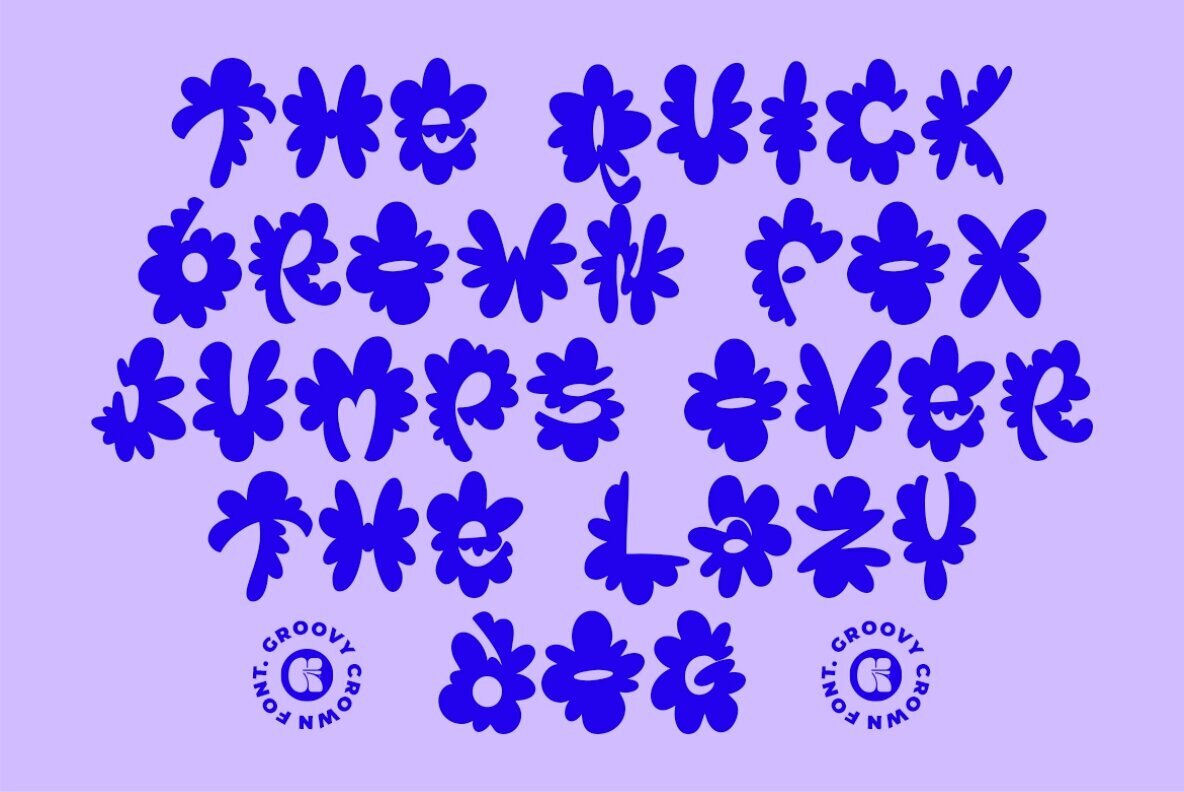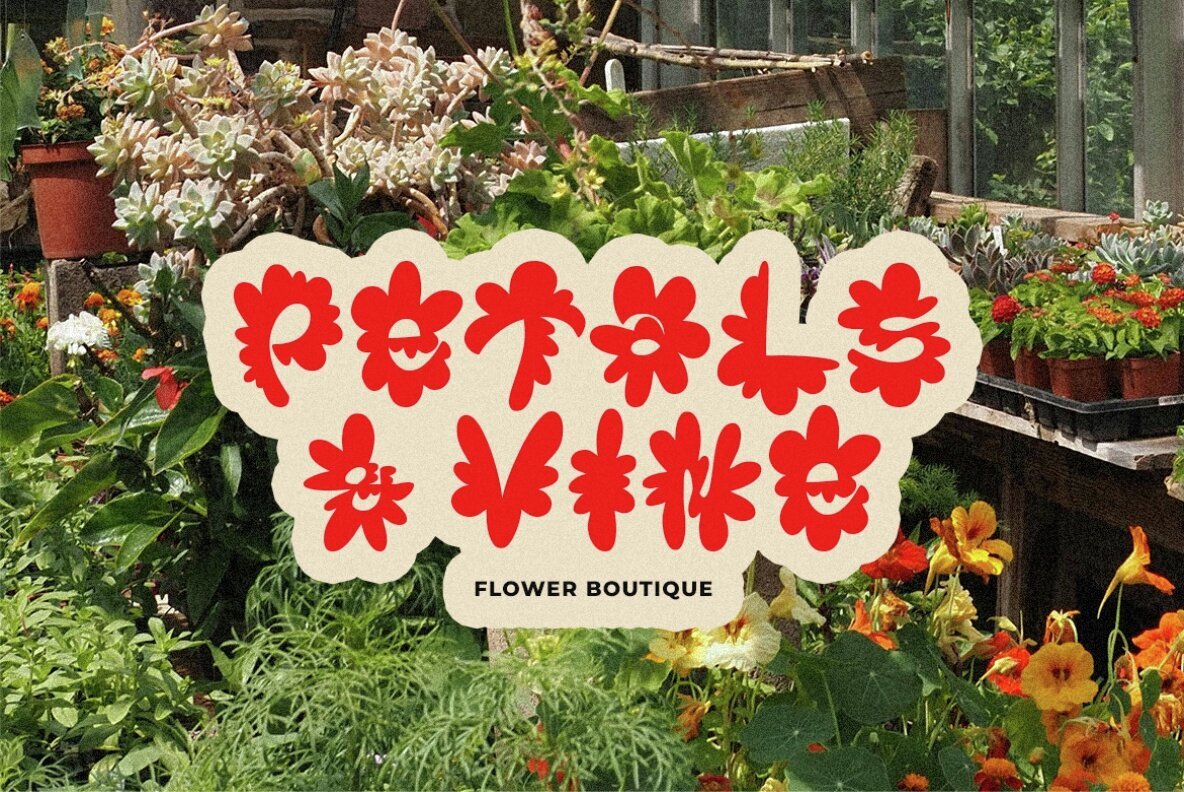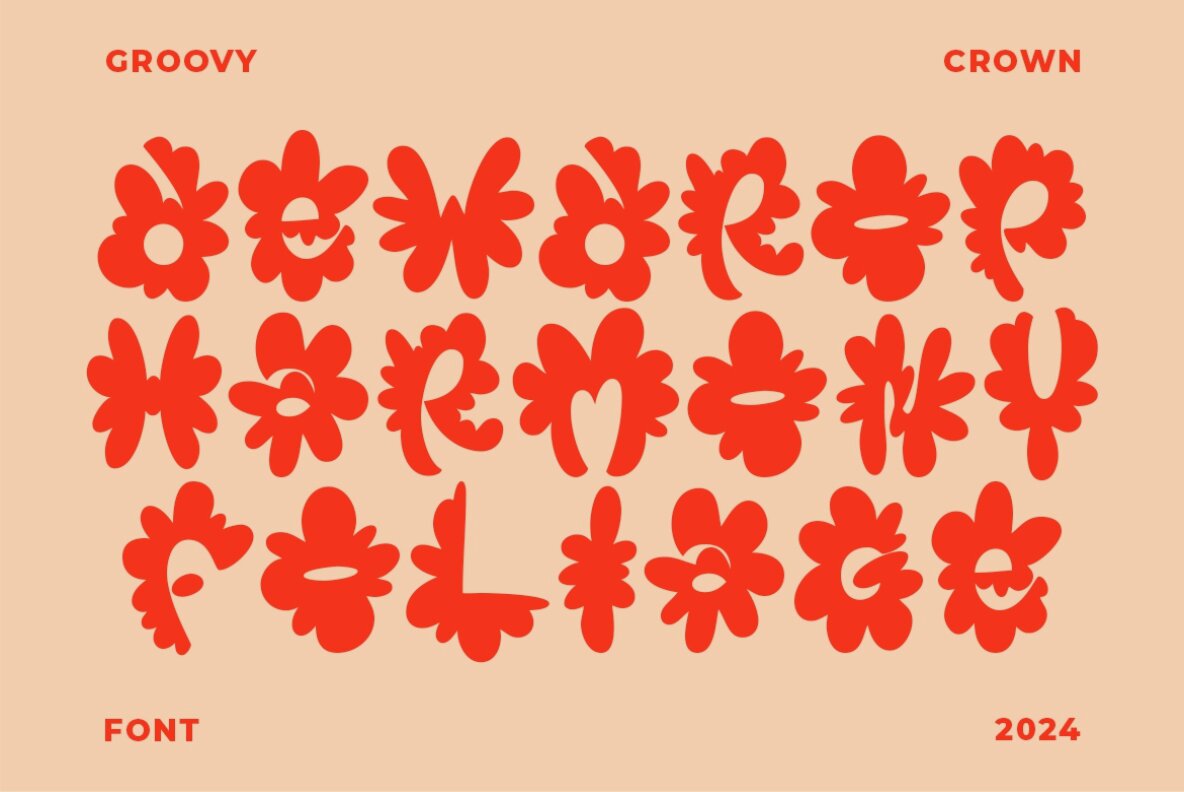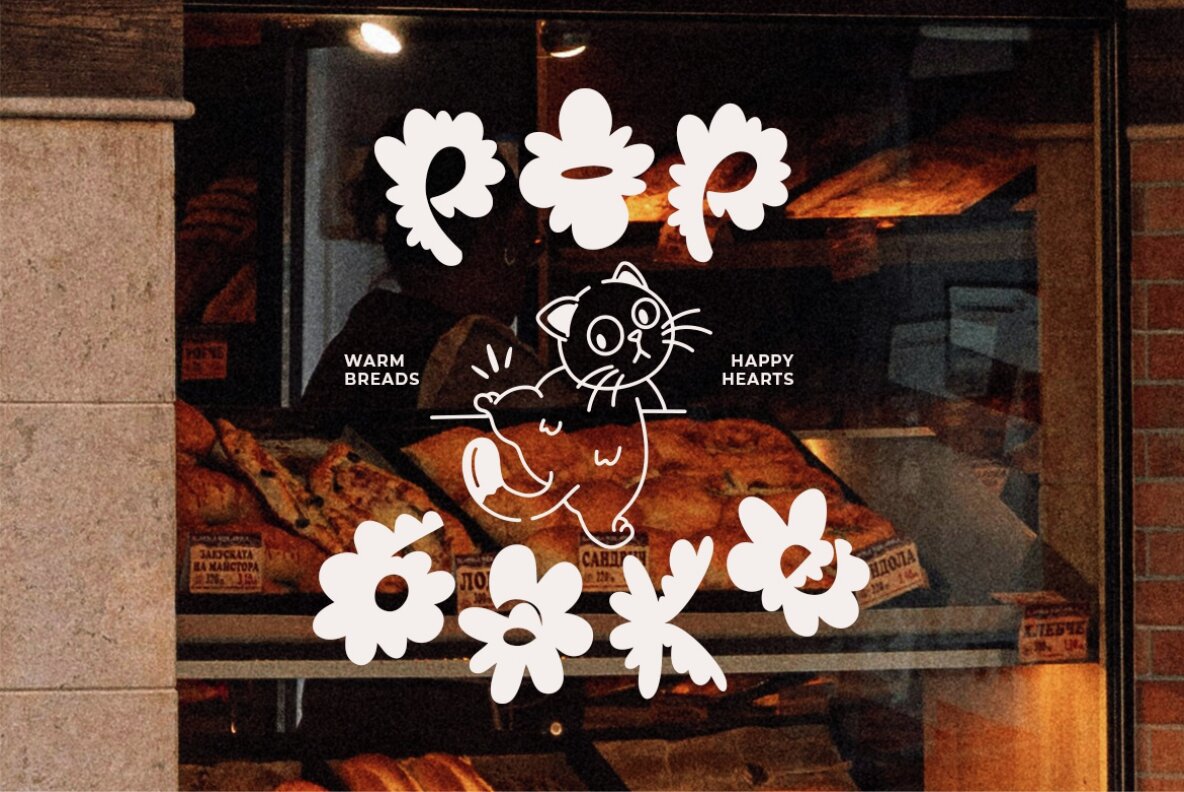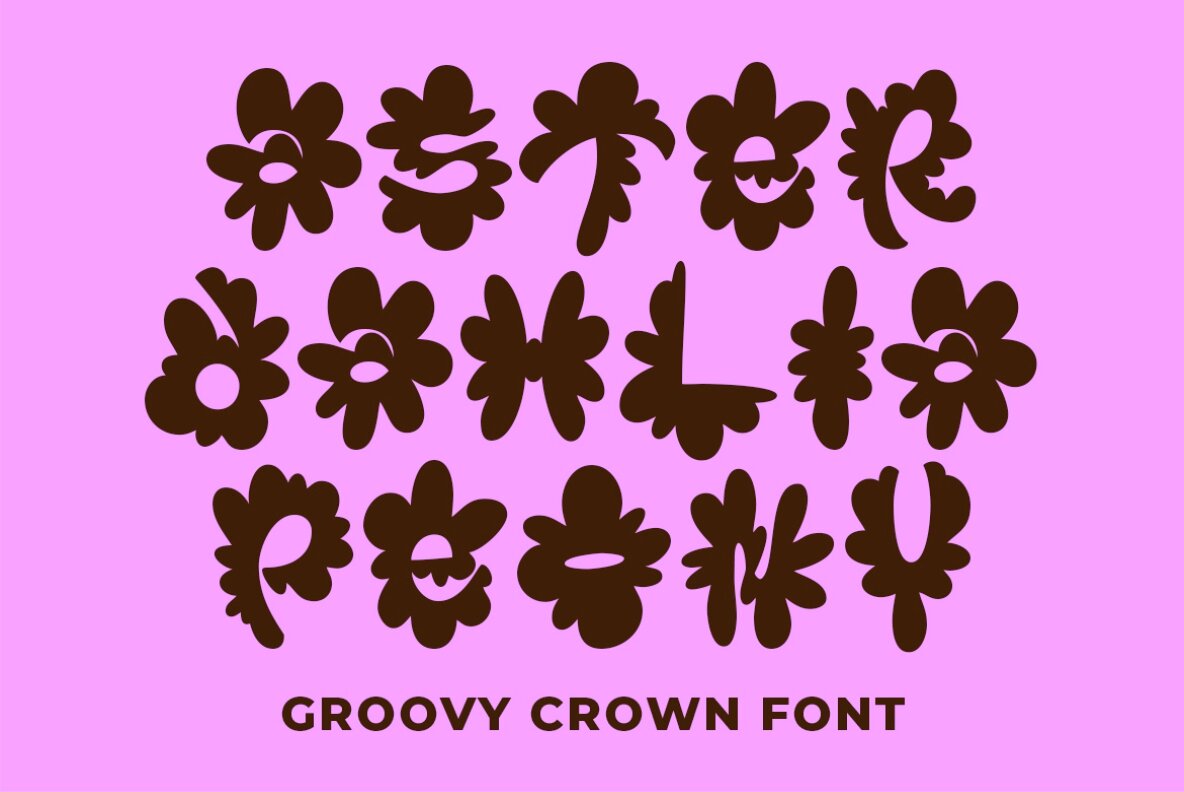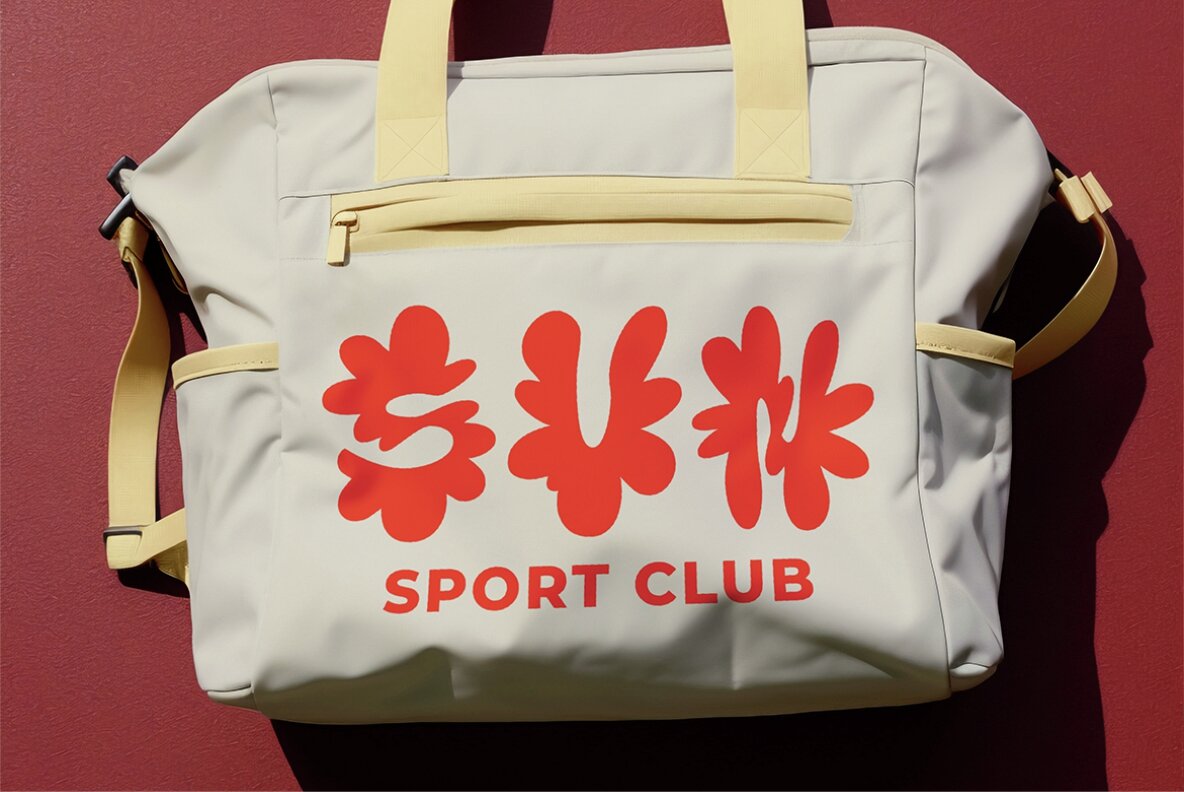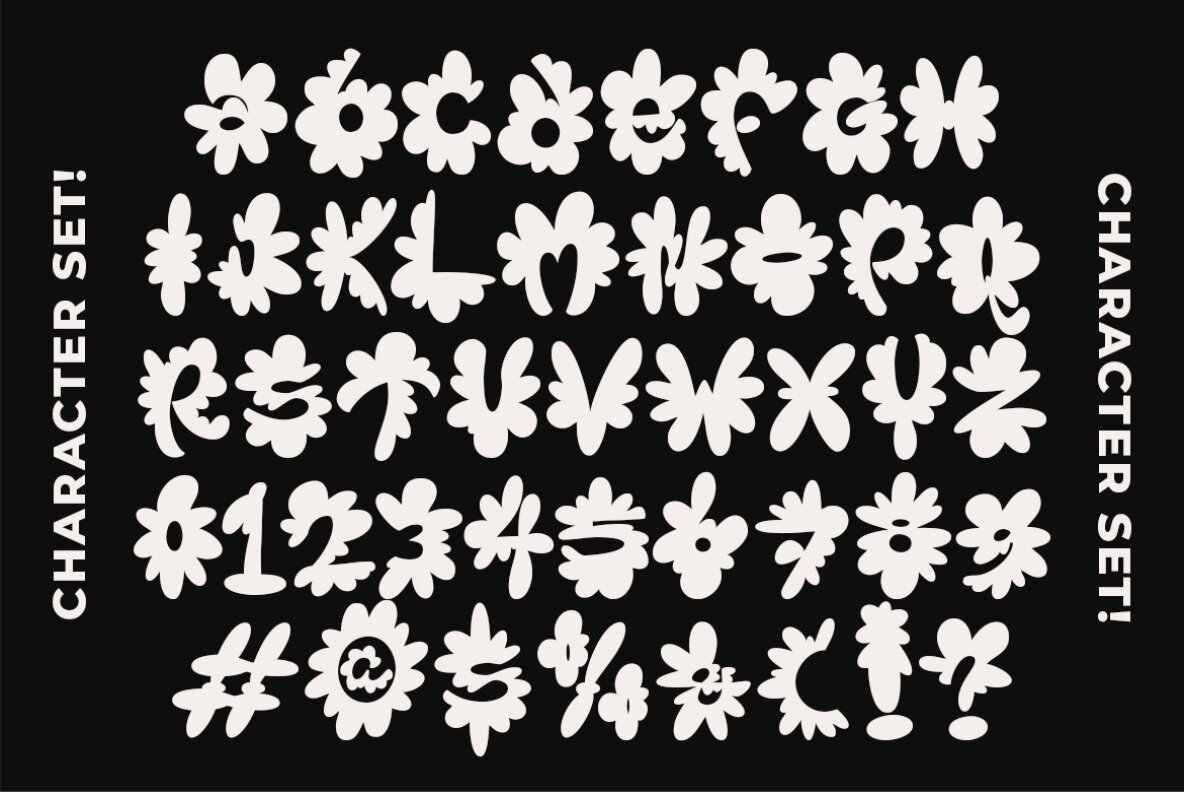
GF Crown Font
Gf Crown
GF Crown is a whimsical, playful display font adorned with hand-drawn sunflowers, bringing a unique and cheerful vibe to your design projects. Its lively character is ideal for creating a lighthearted atmosphere, making it perfect for invitations, posters, and any design that needs a touch of fun.
This font set includes uppercase and lowercase letters, numerals, punctuation, and supports multilingual characters. The intricate sunflower details add creativity and charm, ensuring GF Crown stands out in any design requiring a vibrant and engaging aesthetic.